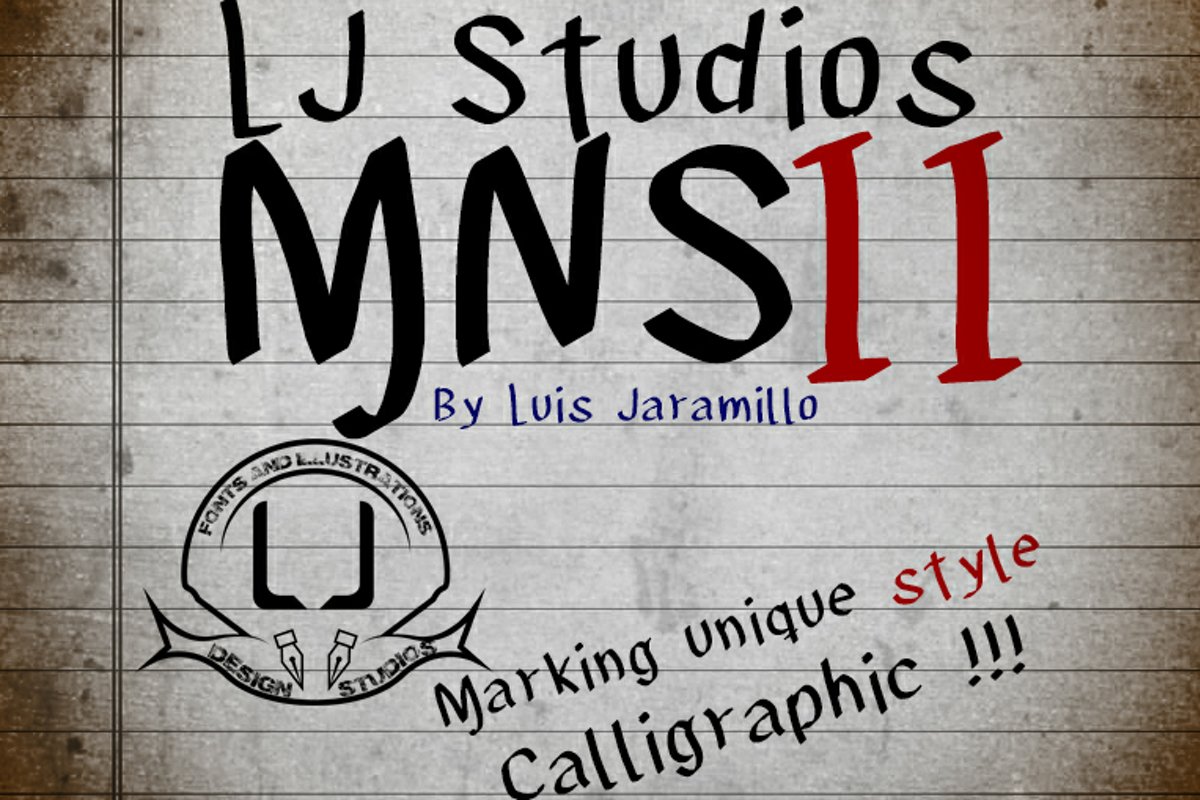
LJ Studios MNS 2
LJ Studios MNS 2 is a calligraphy typeface created by Luis Jaramillo, a classic that can be fun to use for any type of decorative work.
LJ Studios MNS 2 es una fuente tipográfica de tipo caligrafía creada por Luis Jaramillo, un clásico que puede ser divertido en usar para cualquier tipo de trabajo decorativo.